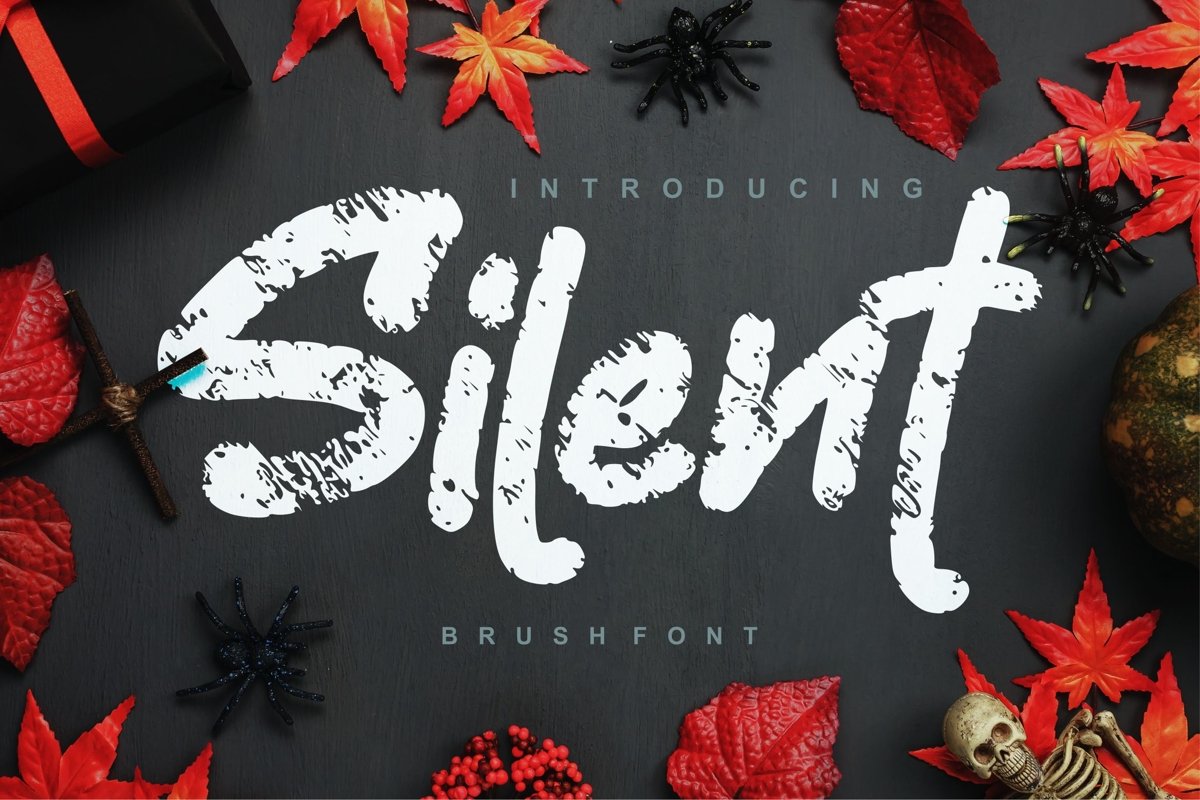
Silent | Decorative Brush Font
Silent
**Silent | Decorative Brush Font** with a calligraphy style, So beautiful on invitation like greeting cards, branding materials, business cards, quotes, posters, and more!